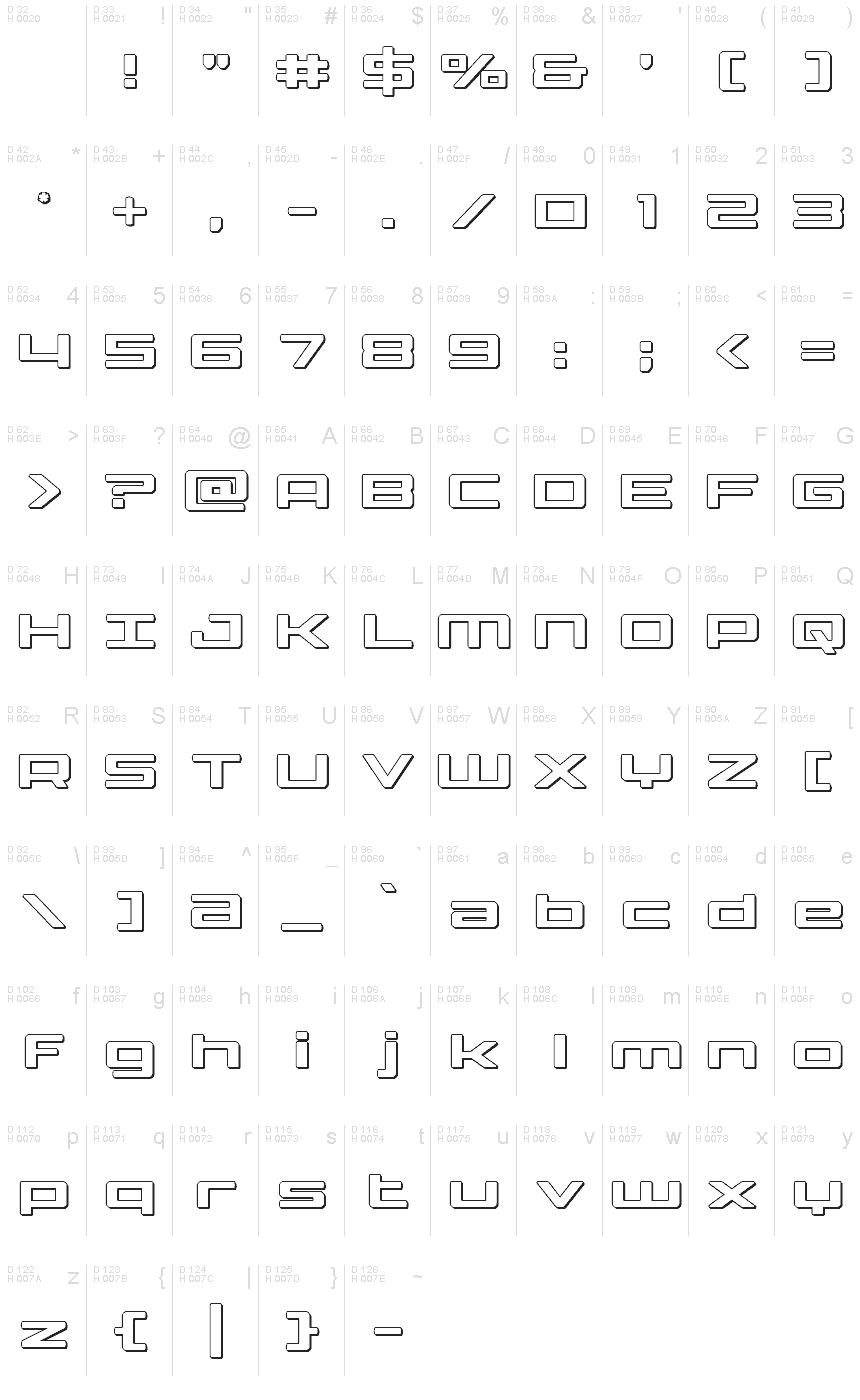
Phoenicia Lower Case 3D emerges from the creative mind of Daniel Zadorozny, a striking addition to the Phoenicia font family. With its techno style and extra-expanded width, this display font commands attention through its bold, architectural lines and dimensional depth. The artful shadows and clean-cut edges of Phoenicia Lower Case 3D infuse text with a futuristic yet readable quality that is both aesthetically pleasing and eminently functional.
Designed for impact, Phoenicia Lower Case 3D is an ideal choice for a range of creative projects. From eye-catching headlines to immersive branding experiences, this font elevates words into visual statements. Whether you're crafting the title of an indie game or designing an innovative tech startup's logo, Phoenicia Lower Case 3D offers versatility without sacrificing character or style.
Phoenicia Lower Case 3D